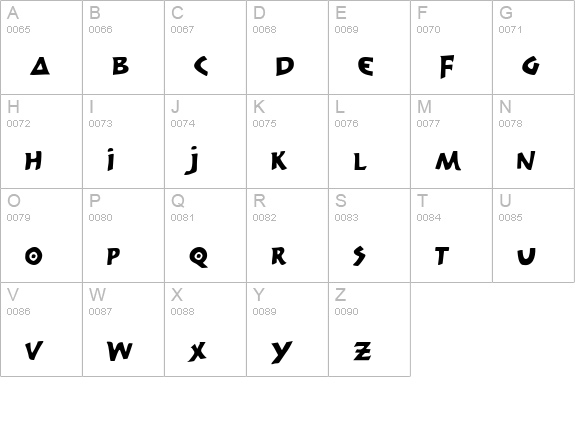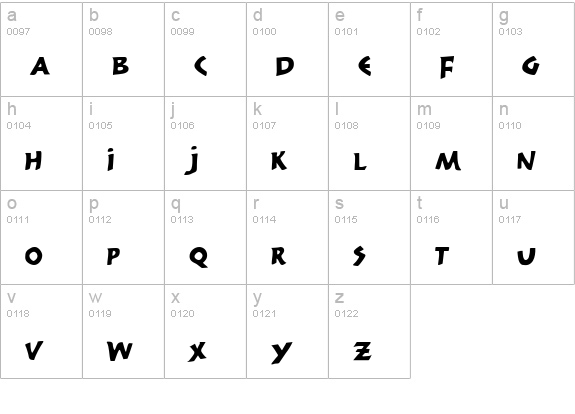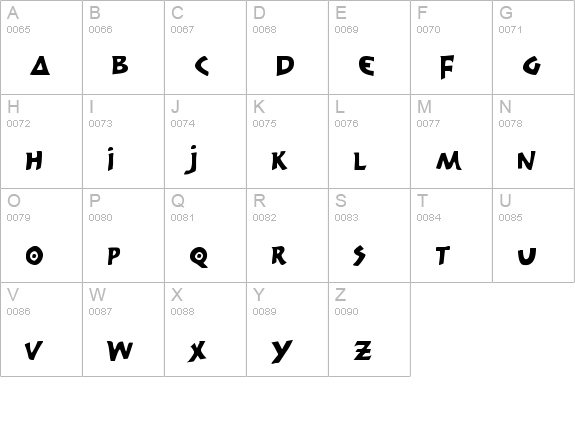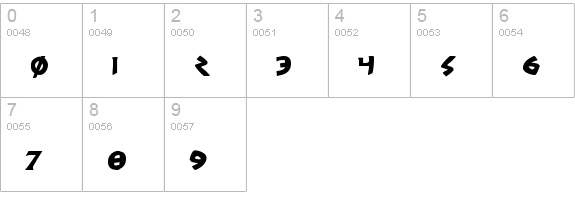
The 300 Trojans font is a striking and versatile typeface that exudes strength and elegance. With its bold lines and sharp angles, this font is perfect for making a bold statement in your design projects. Whether you're creating a poster, logo, or website, the 300 Trojans font will command attention and leave a lasting impression. Best of all, the 300 Trojans font is available for free download at FontsMarket.com. This means you can add this powerful font to your collection without breaking the bank. Don't miss out on the opportunity to enhance your designs with the 300 Trojans font today!